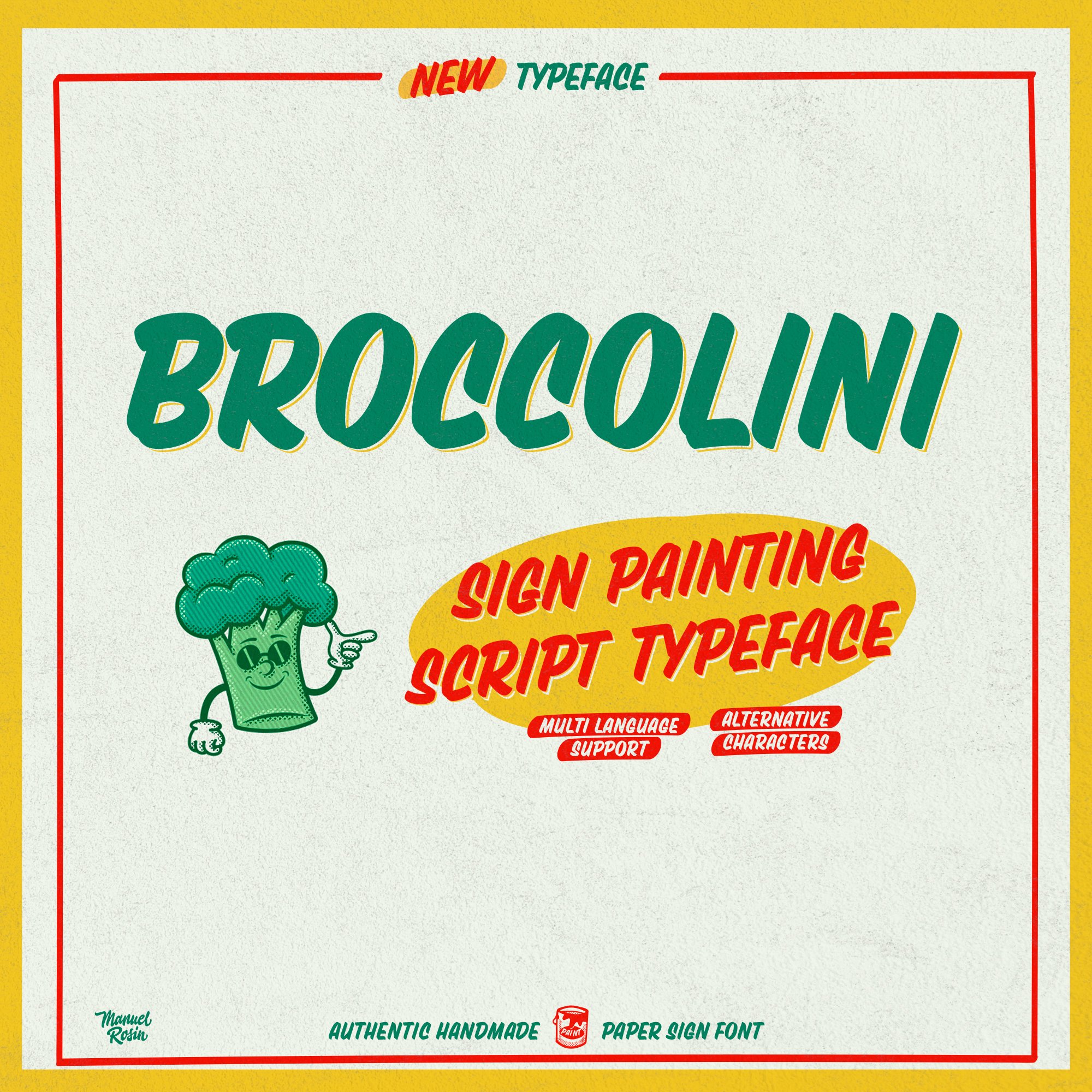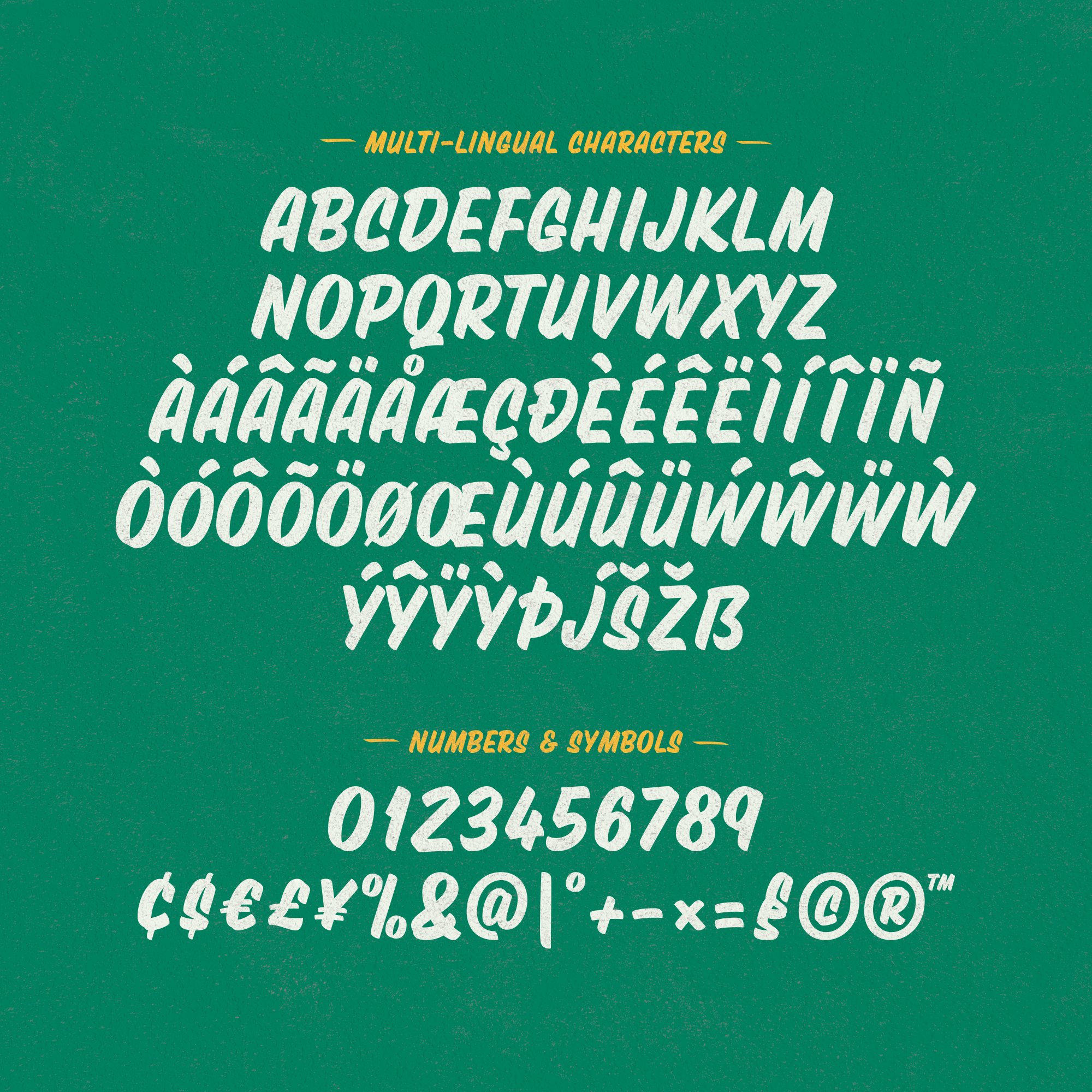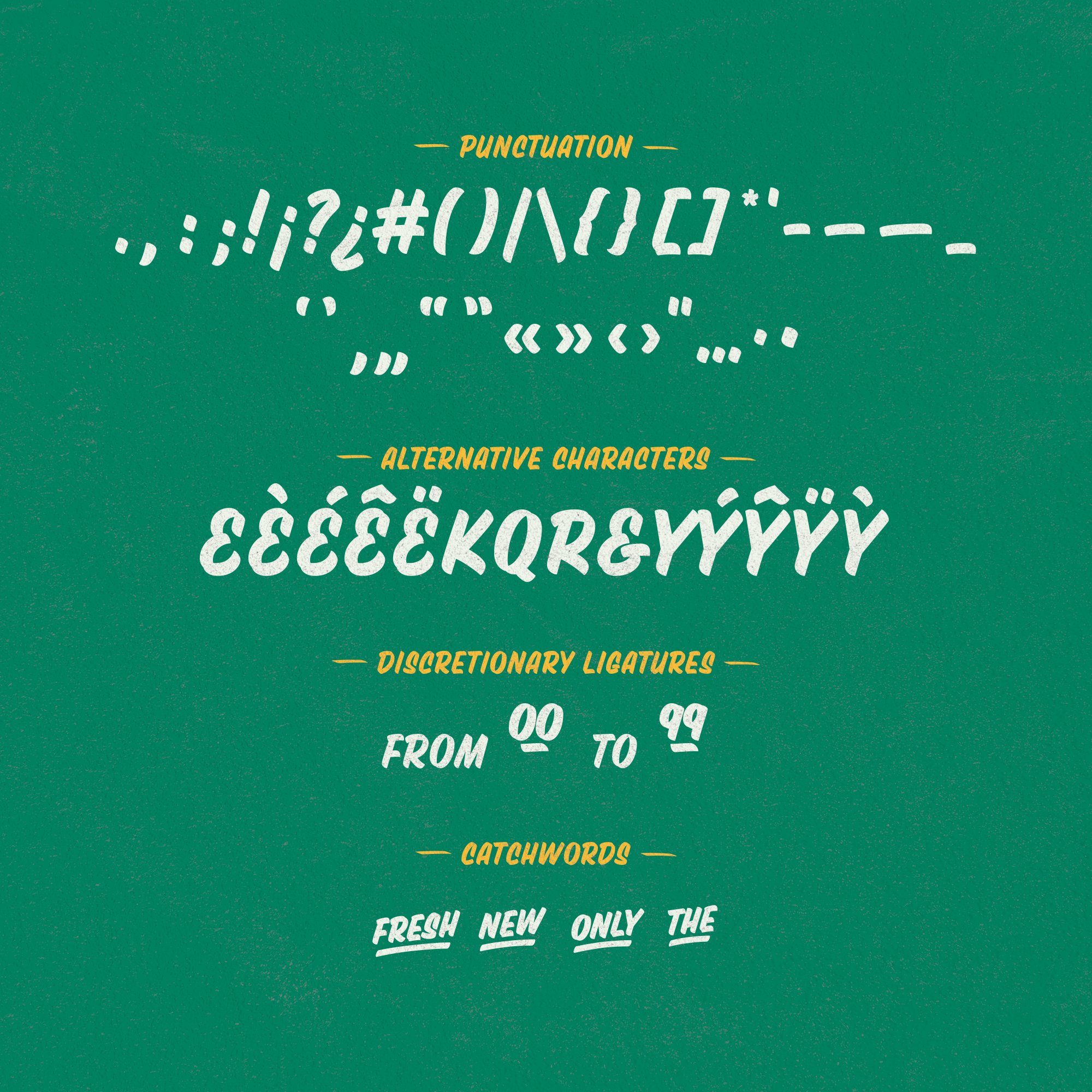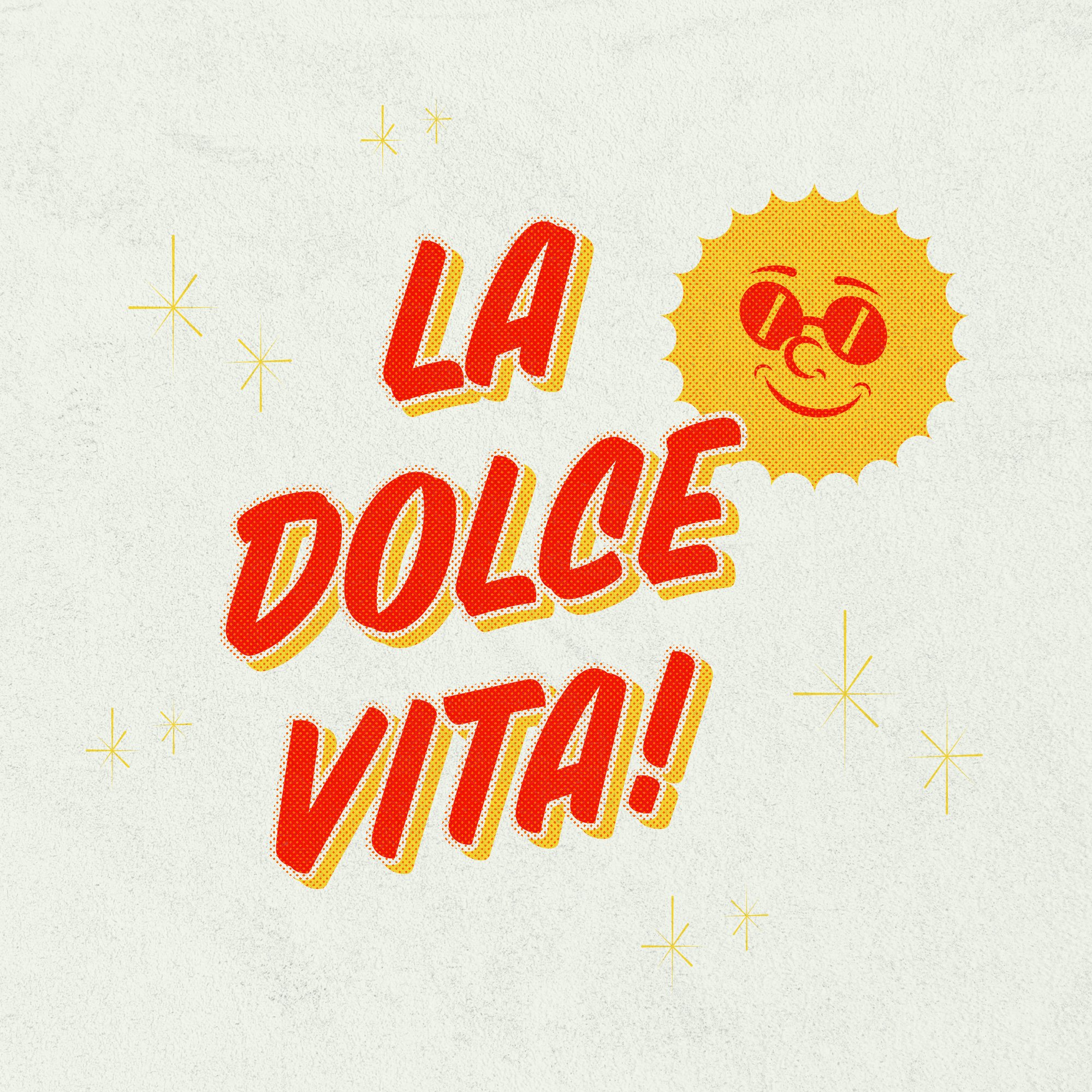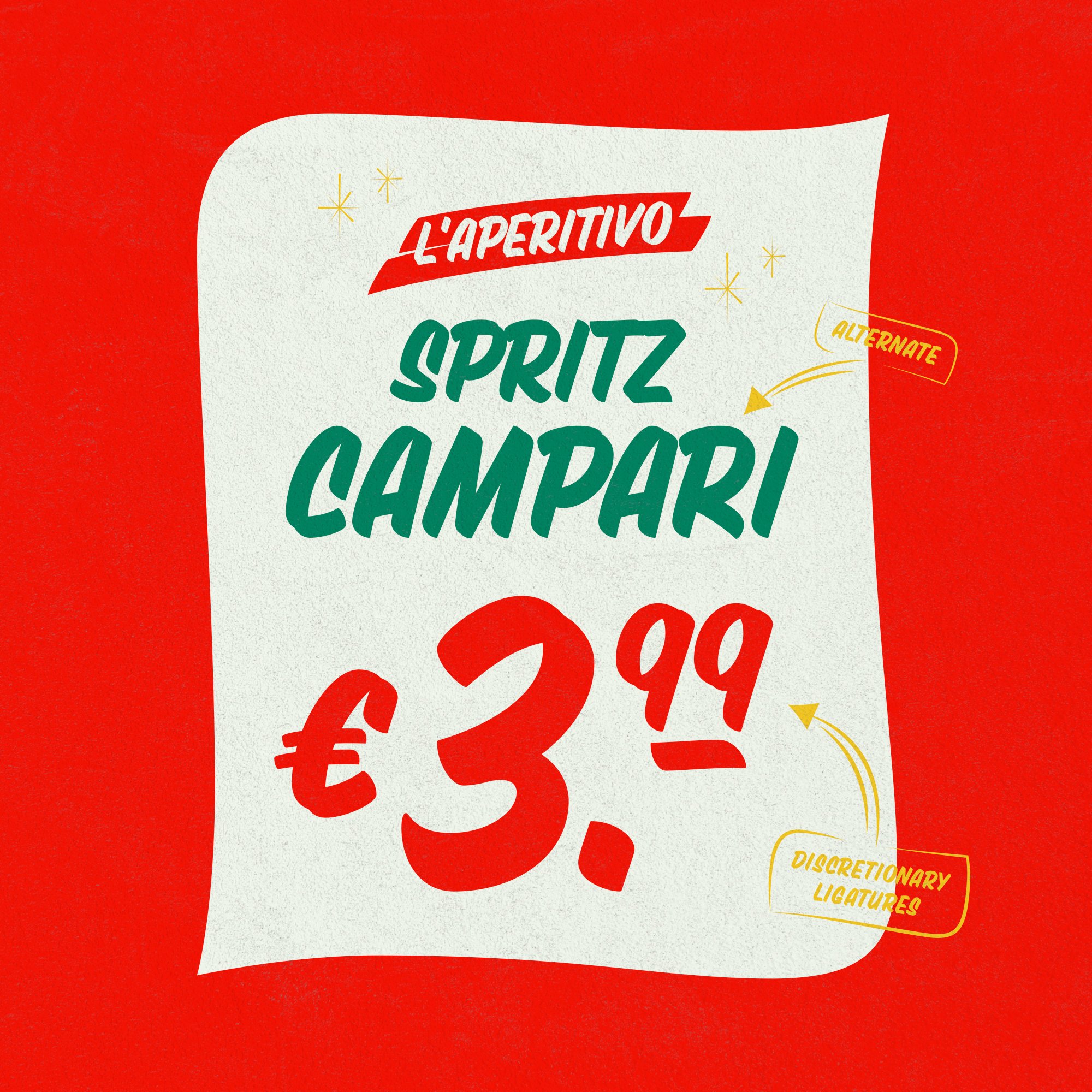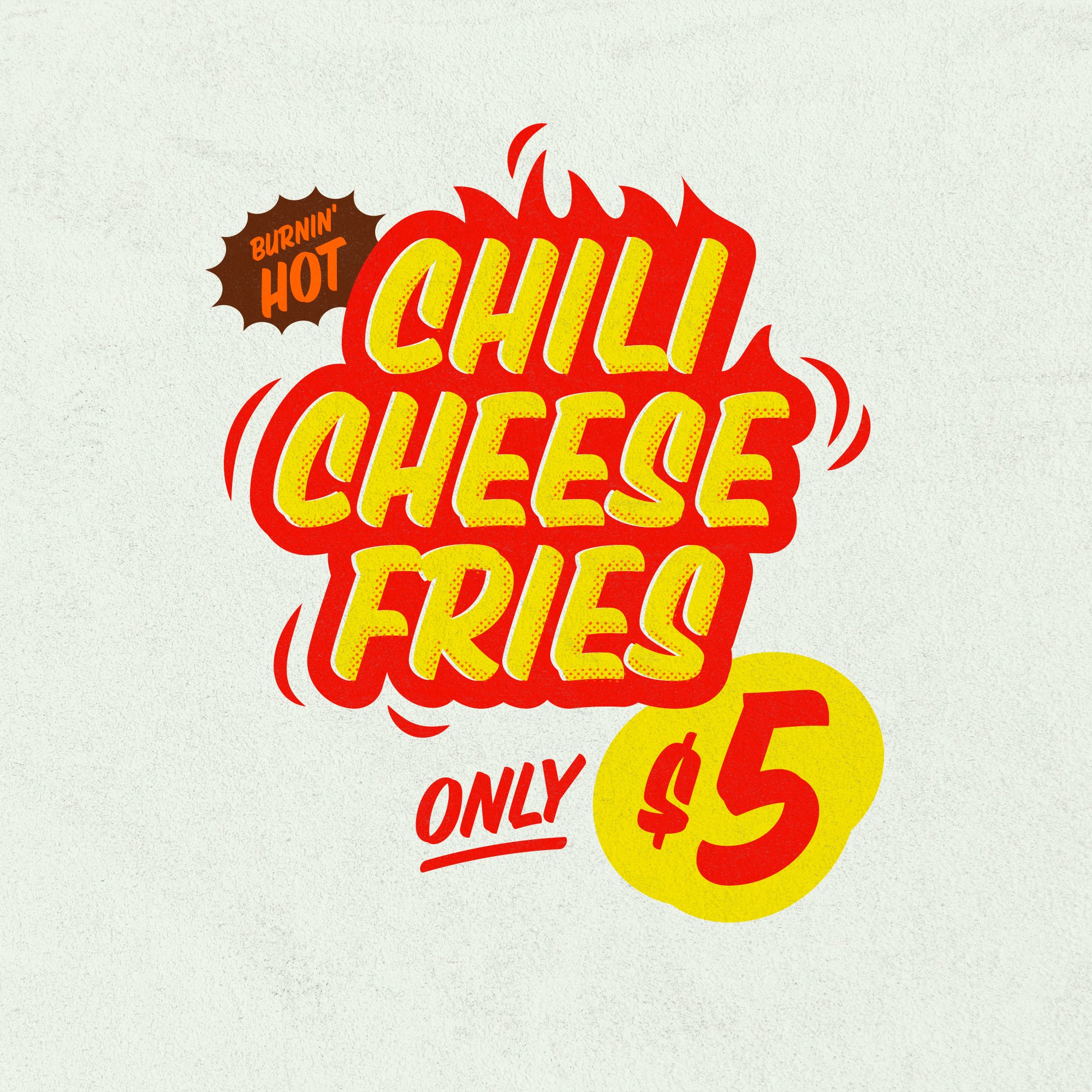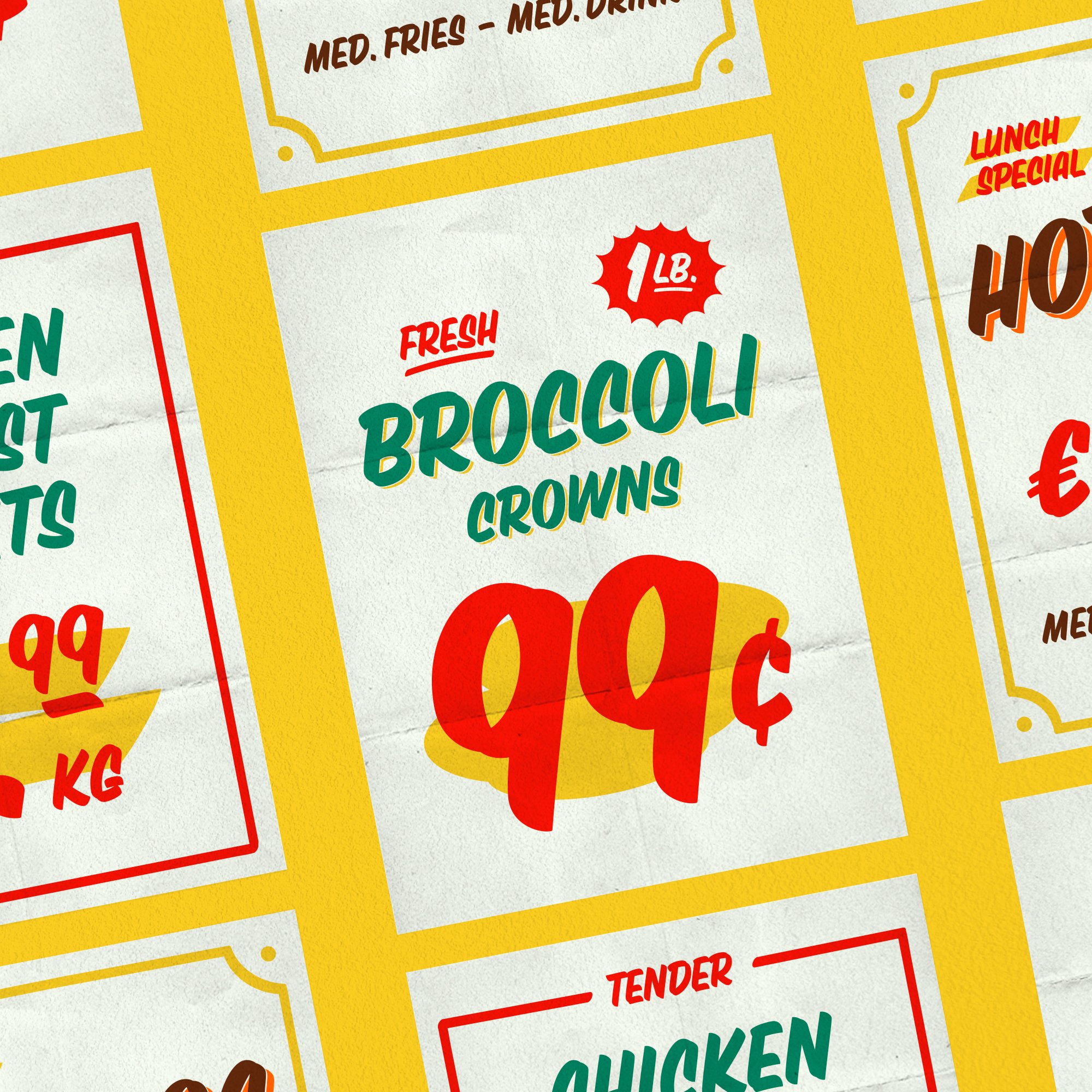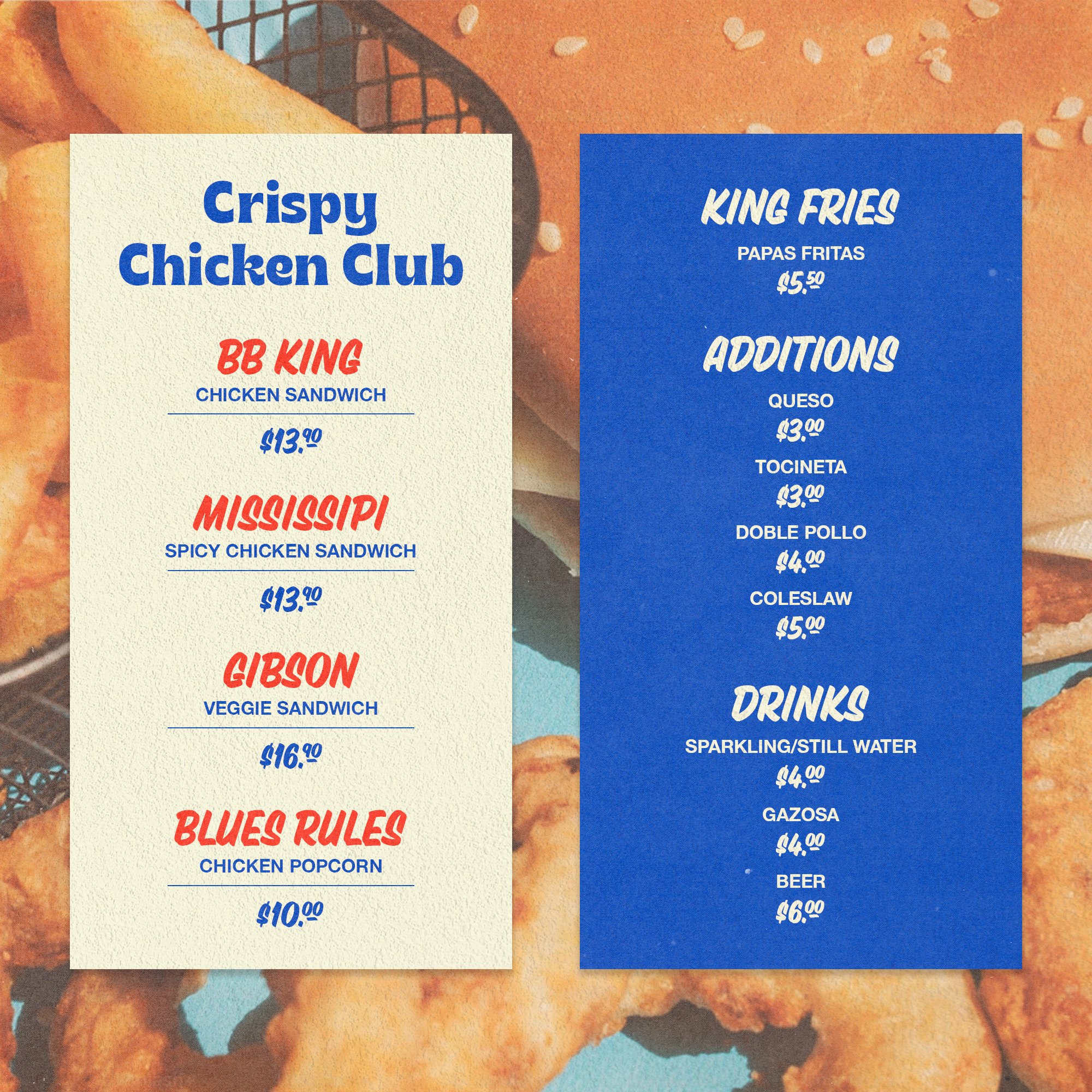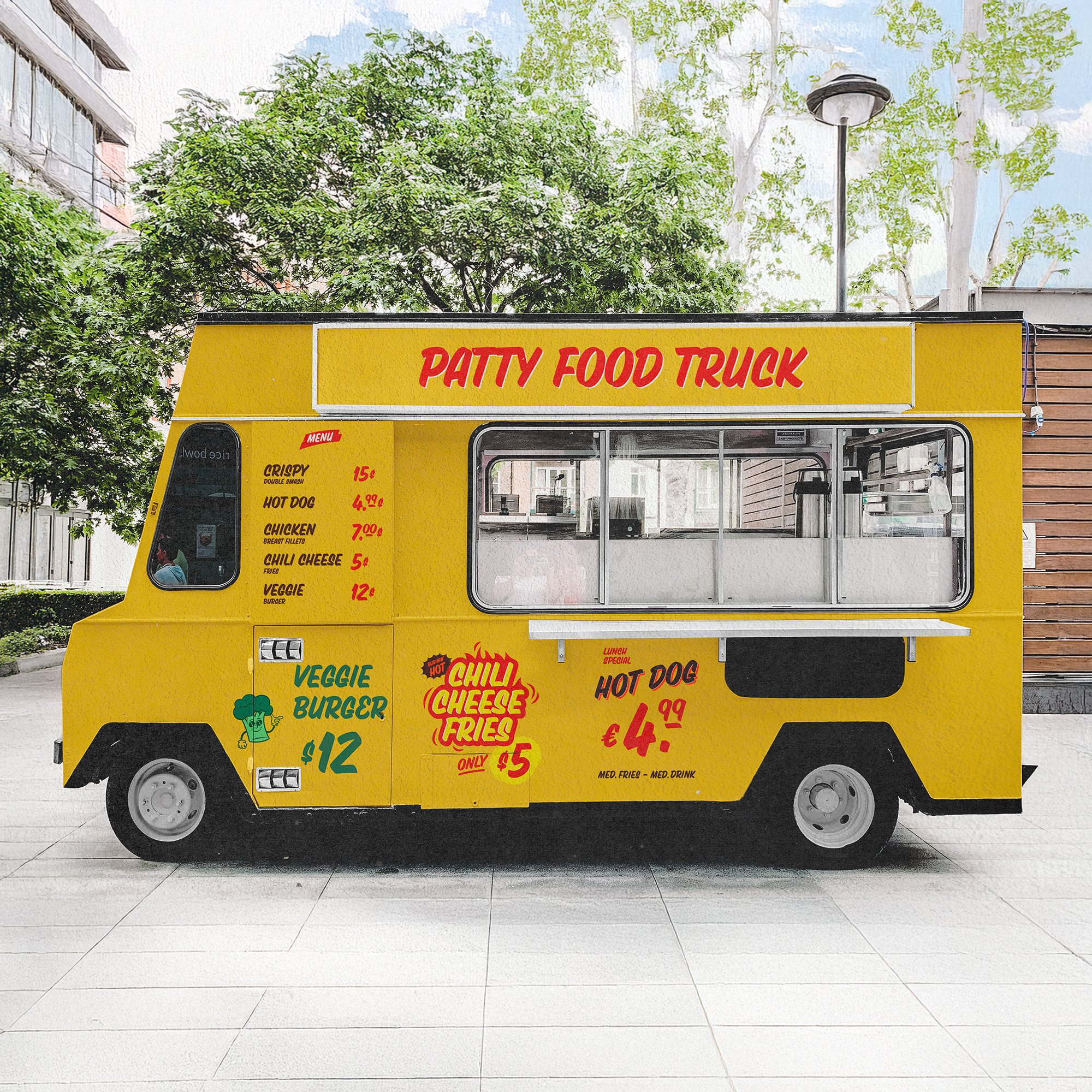
Broccolini
Broccolini is a typeface based on sign painting strokes with rounded corners and a handmade flavour. Letterforms are inspired by Casual sign painting style which was used on shops and markets signs. Its bold strokes make it a perfect choice for advertising, packaging and logotypes with style!
Broccolini supports multi-languages (mostly Western Europe), it has some alternative characters, a huge amount of discretionary ligatures and some catchwords to spice up your graphics!